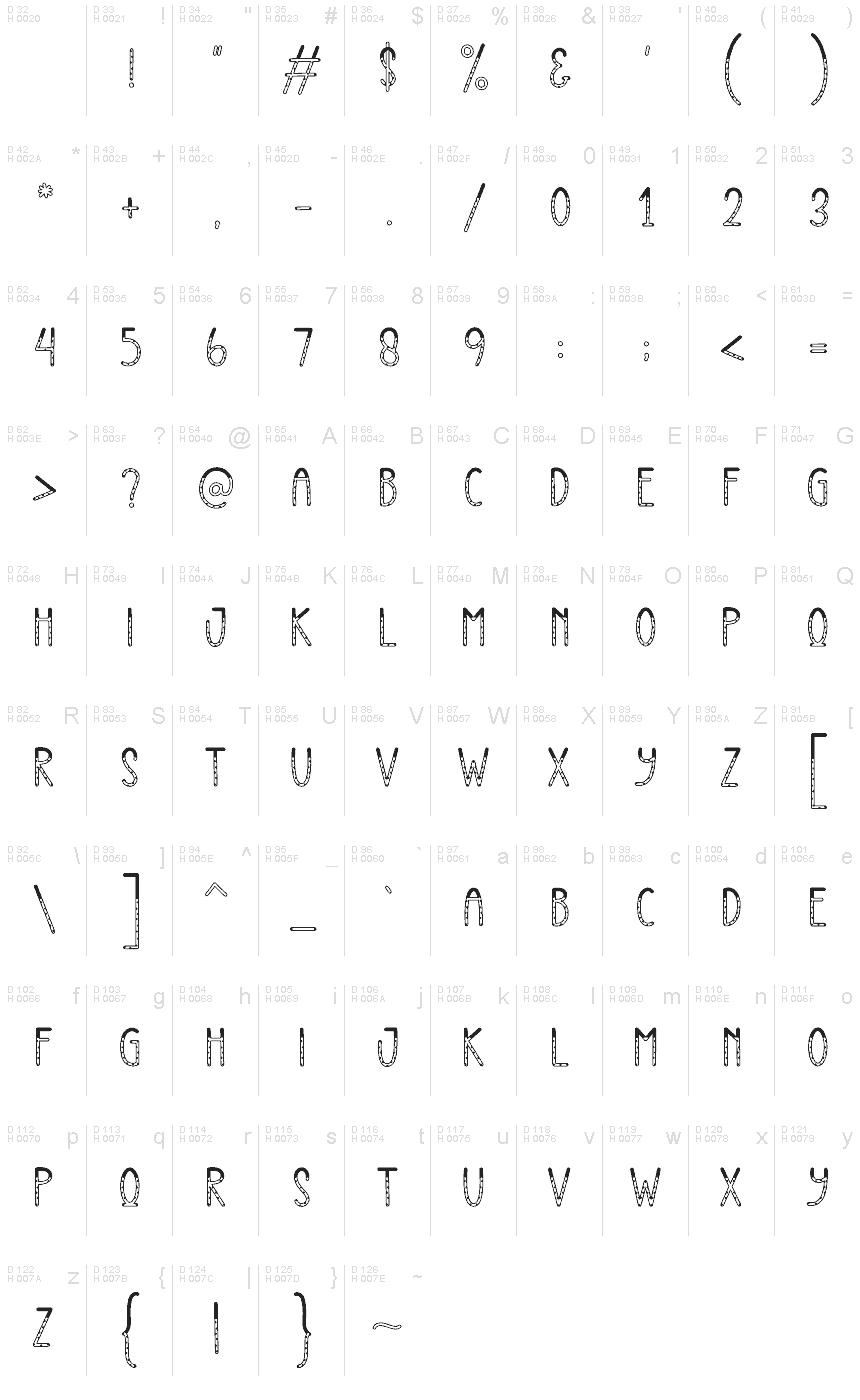
Browse font is a decorative display font presented by Andi Moz. Channeling a vintage-inspired style, it's filled with artistic flair due to the retro dotted pattern designed within each character. The shapes are simplified, yet still containing elements which make up an interesting contrast between black and white surfaces. Additionally, the overall look of letters is not standard as they happen to be condensed in width and unique.
Exploring this free resource allows you to consider it within branding projects including car shops' logos that sell retro cars or those that repair them. Contemporary fashion brands will also work well with Browse along with personal brands by product designers, architects, painters etc. Social media posts offering classic punchlines can be displayed in this font while it can also add personality in video posters that are presented digitally or printed!